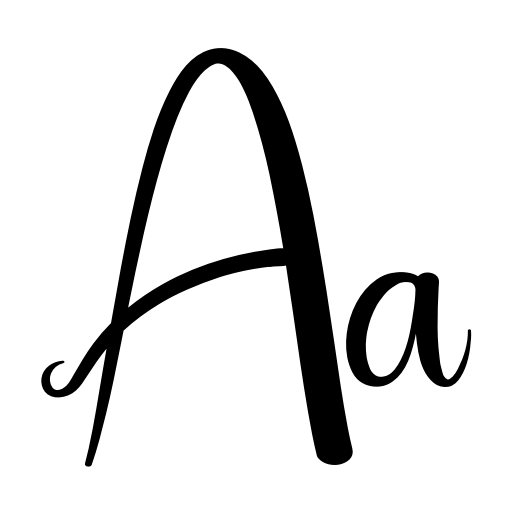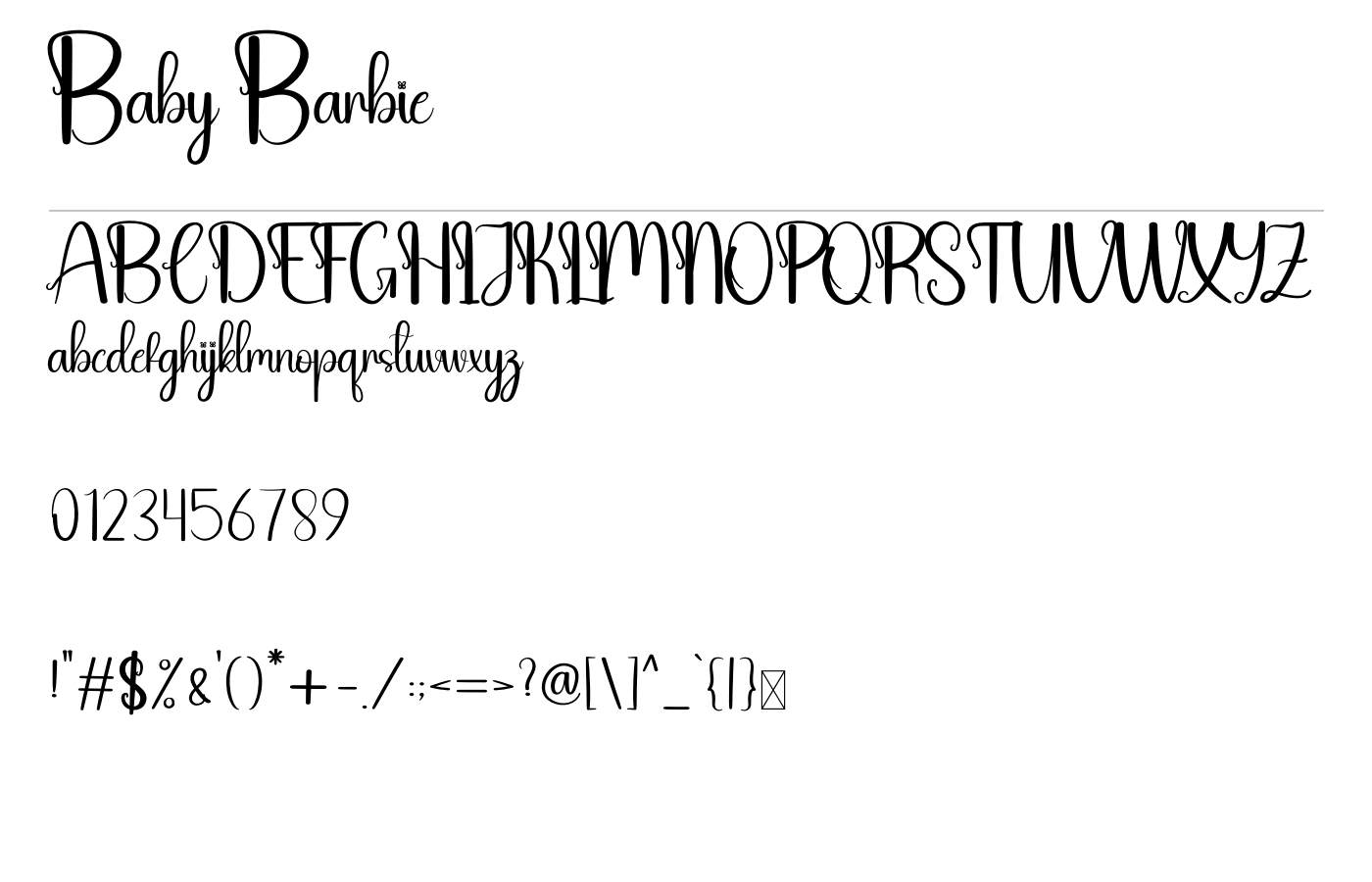
Baby Barbie is a playful and elegant script-style font with tall, slender letterforms and charming loops that lend a whimsical, handwritten feel. Its thin strokes and delicate curves create a light, airy impression, making it perfect for designs that want to evoke femininity, youthfulness, and creativity. This font works beautifully for invitation cards, branding in beauty or fashion, and any project seeking a stylish yet approachable touch.
Baby Barbie Font
About Baby Barbie Font